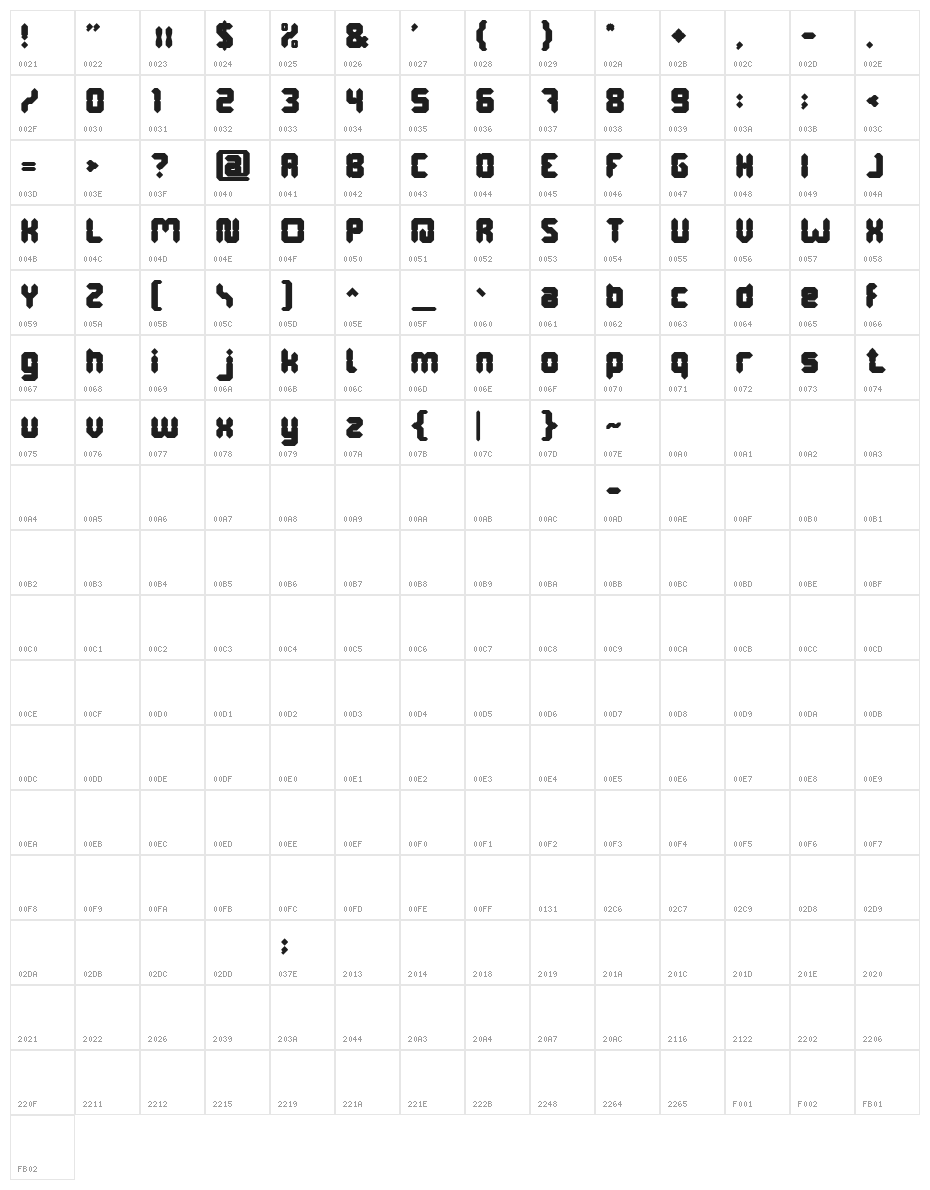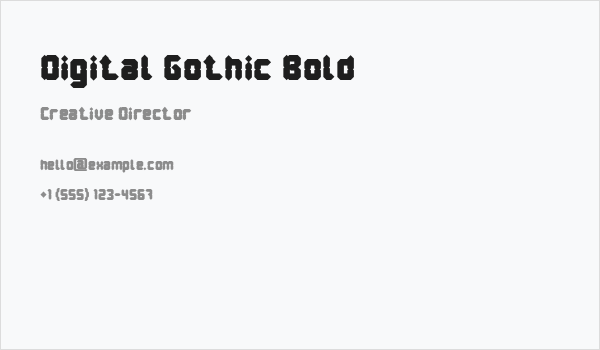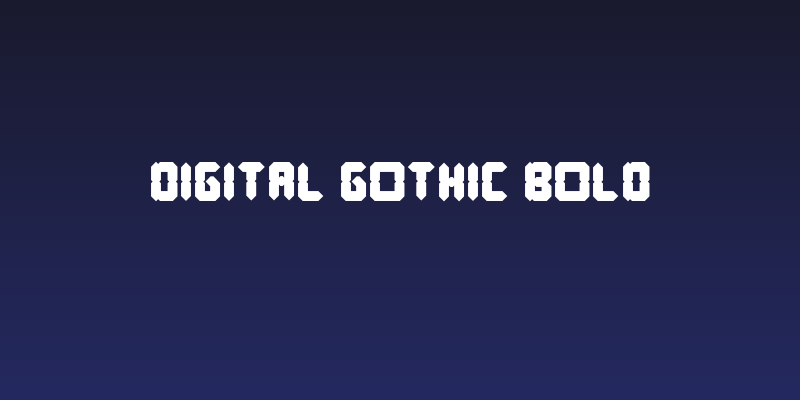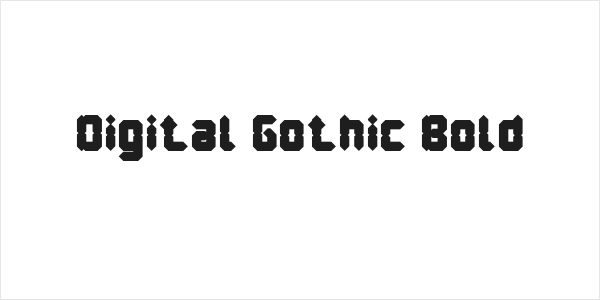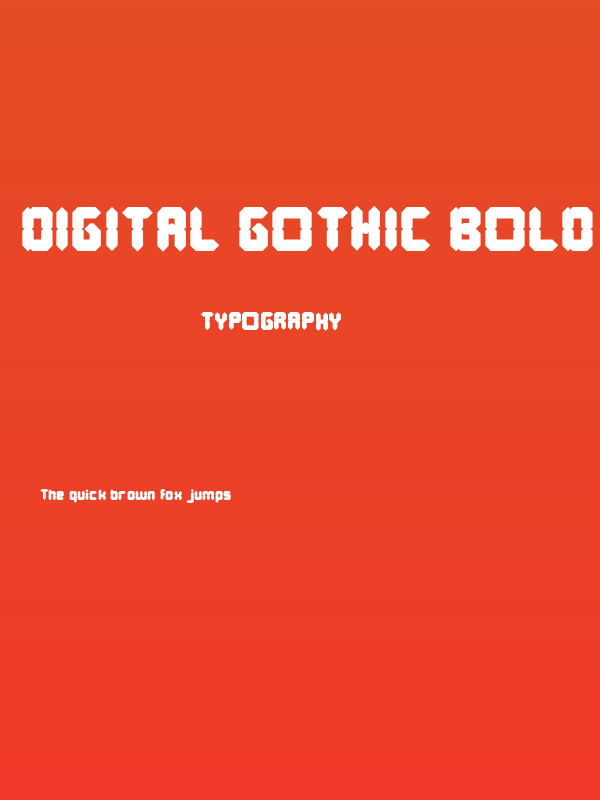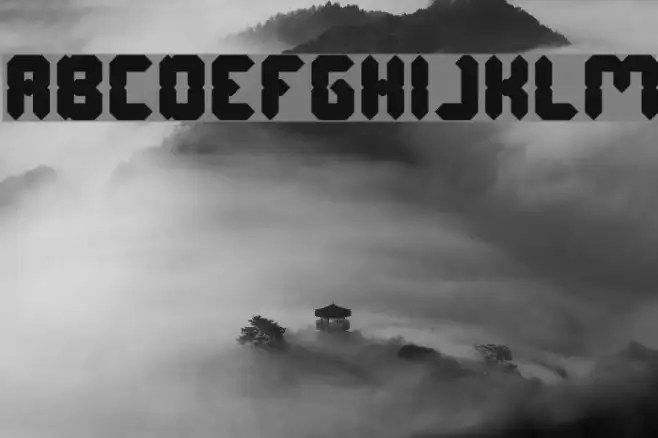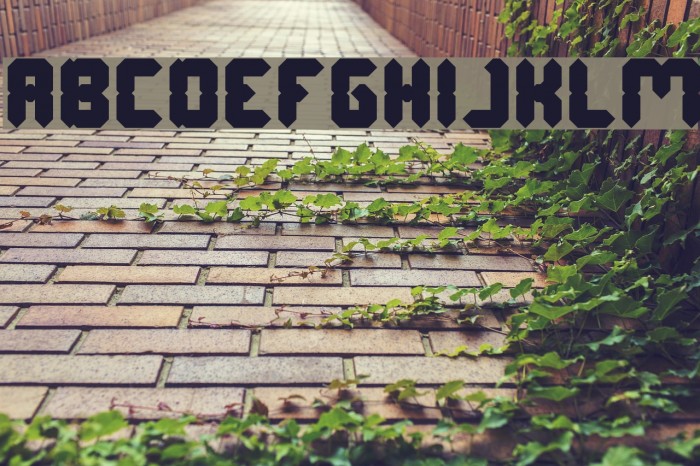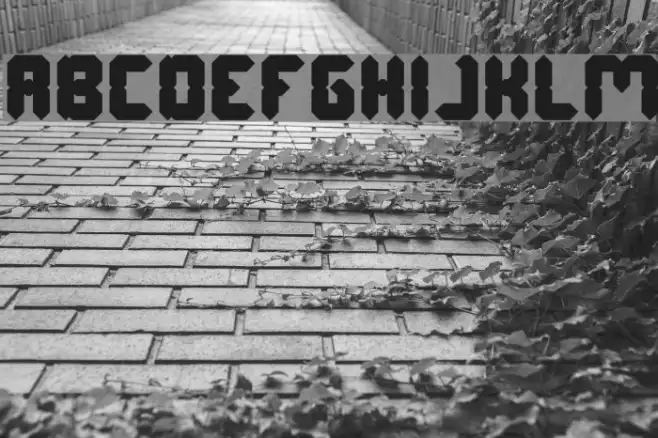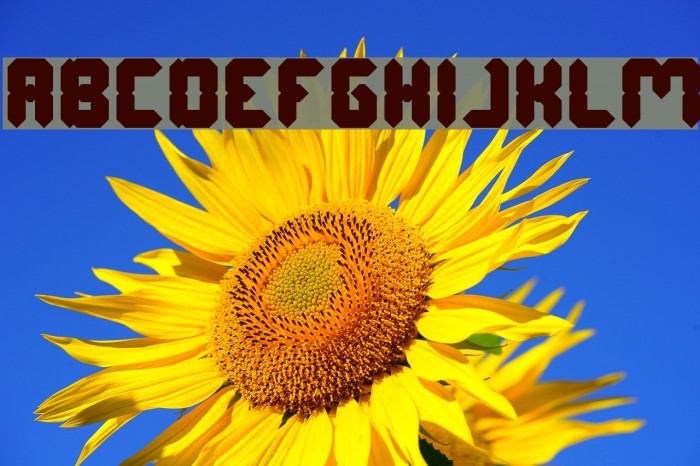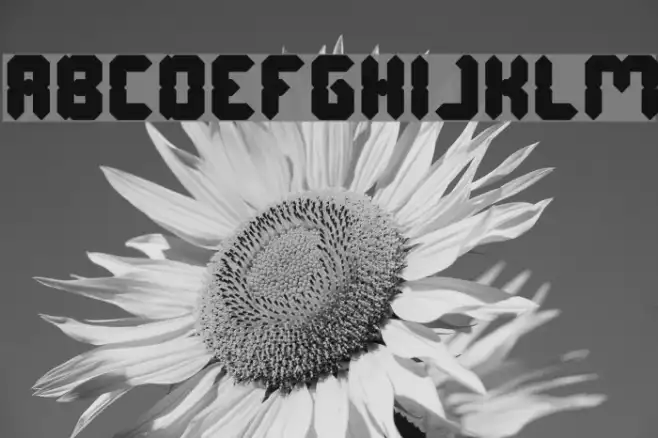
Digital Gothic Bold Font
Digital Gothic Bold Description
This font features a bold, geometric design with sharp angles and a digital aesthetic. The characters are constructed with a blocky, pixel-like appearance, reminiscent of early digital displays or retro video games. The uppercase and lowercase letters maintain a consistent style, with uniform stroke thickness that emphasizes a strong, impactful presence. The numerals and special characters follow the same design principles, ensuring a cohesive look across all glyphs. This font's unique style makes it stand out, offering a modern twist on traditional gothic elements.